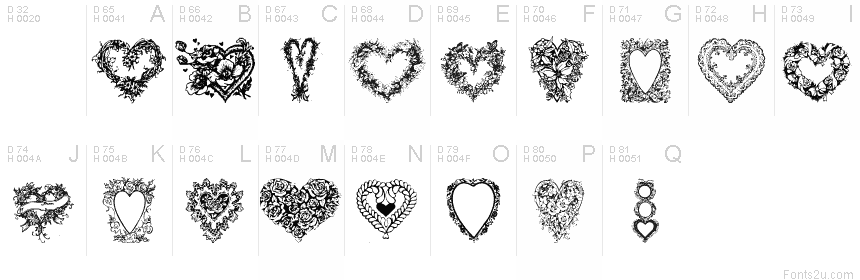
Hearts of Lime
Hearts of Lime font by Designbylime is a free decorative dingbat typeface that turns every keystroke into an ornate, lace-trimmed heart. The glyphs feel like hand-cut paper doilies, packed with tiny curls, dots, and floral flourishes that print crisply in black or color. There’s a nostalgic, almost Victorian charm to the artwork, giving your layouts a touch of keepsake-box romance without needing any illustration work.
Using Hearts of Lime, you can quickly build wedding invitations, Valentine’s cards, love notes, gift tags, scrapbooking pages, boutique packaging, or romantic social graphics. The icons hold up beautifully at larger sizes, where the filigree really shows, and pair well with a clean sans serif for text to keep things readable. This free font shines when you let the hearts act as frames, borders, or focal badges that anchor your whole design.